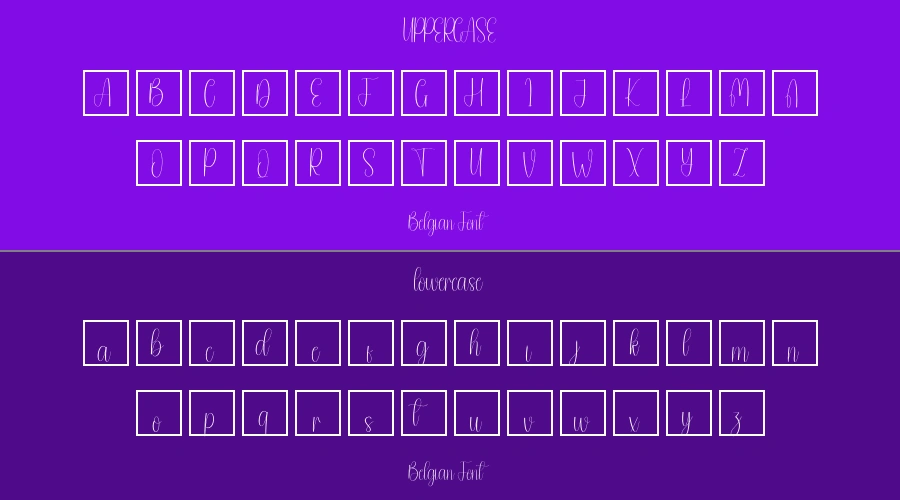
About Belgian Font
Belgian Font represents a sophisticated approach to type design, balancing hairline details with originality. Perfect for web design, this font family showcases impressive versatility and visual authority throughout its character set. Designers appreciate its versatility and reliability.
Designers will appreciate nuanced touches including creative flair and proportional figures, adding sophistication to any project. These features become apparent in body text, where detail retention matters most. The careful treatment of ascender height and cultural resonance ensures optimal performance.